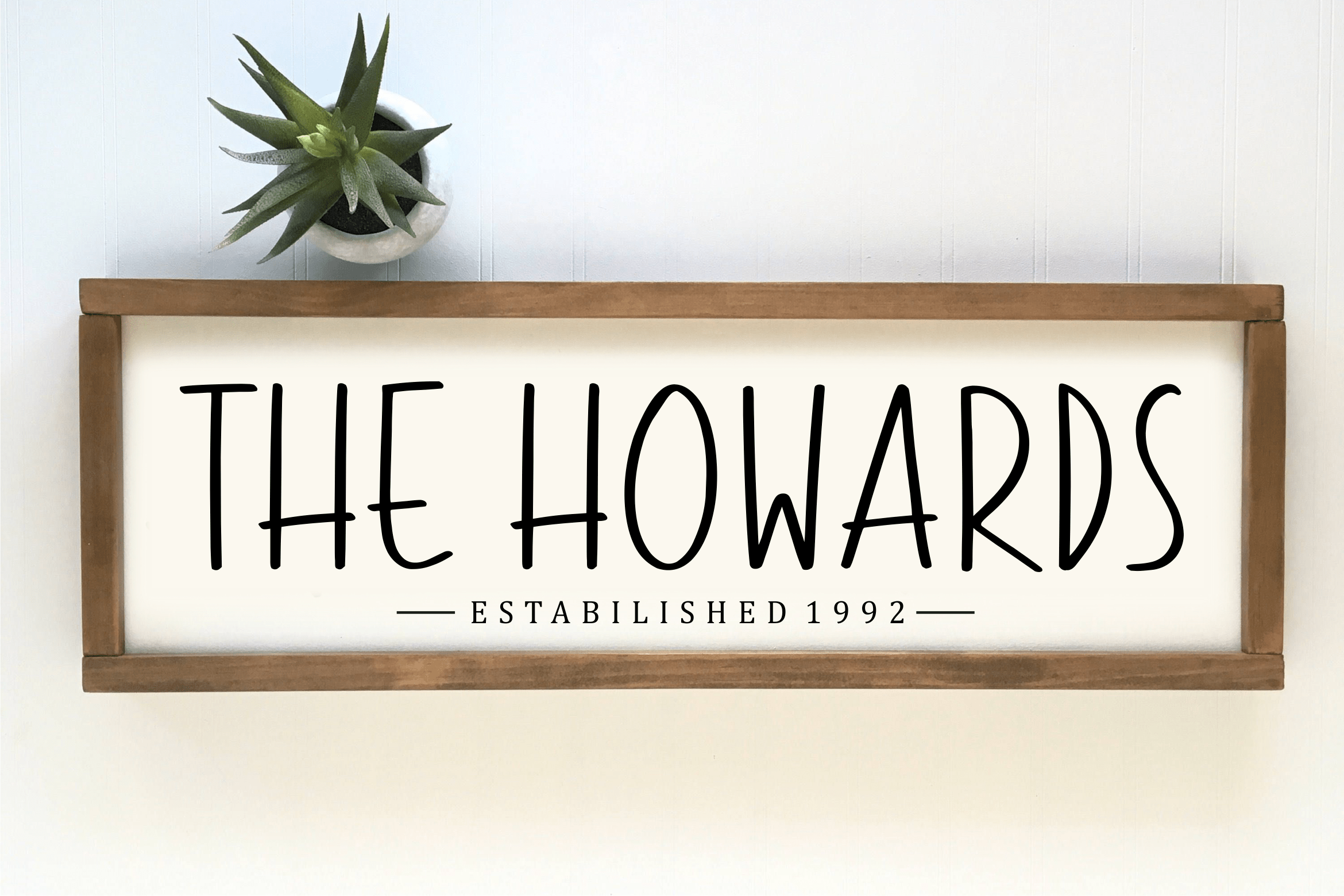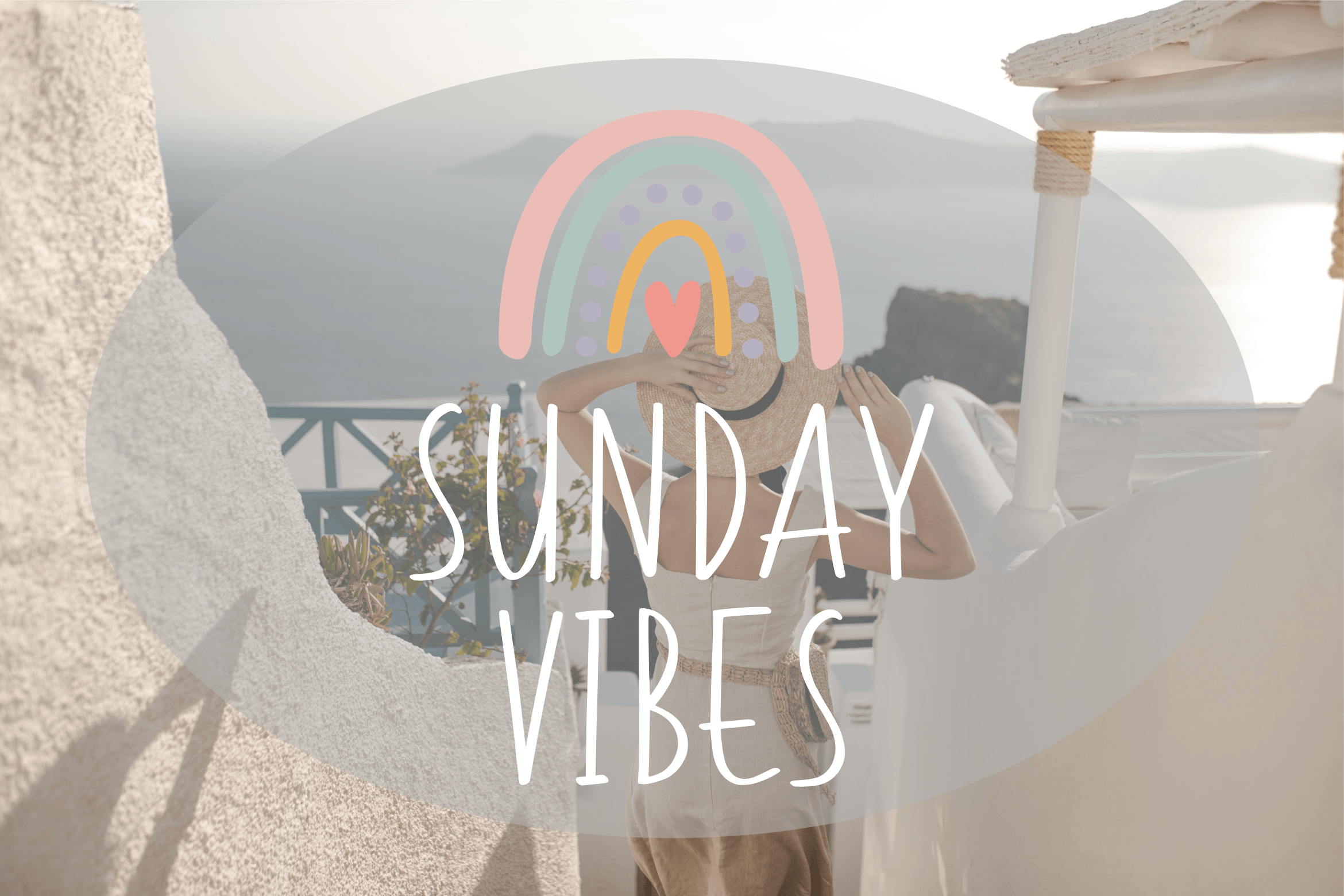
Farmgarden Font
Farmgarden Display Font
This is a simple and joyful handwritten font. Its natural and unique style makes it incredibly fitting to a large pool of designs. The only limit is your imagination!